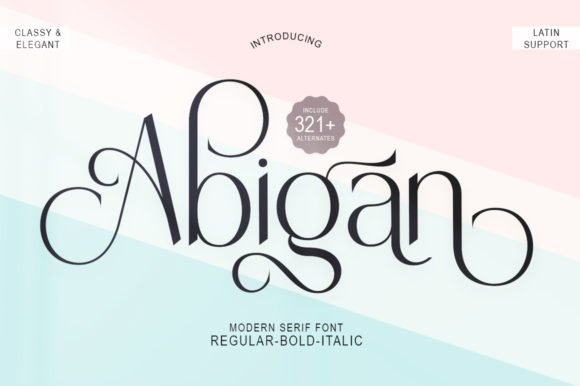
The Perfect Blend of Elegance and Sophistication: Abigan Font
Have you ever found yourself staring at a blank page, struggling to find the perfect font to match your creative vision? The search for the ideal typography can be overwhelming, but what if I told you that there’s a font that can elevate your projects to the next level? Enter Abigan Font, a stunning serif font designed to add a touch of sophistication and elegance to any design.
With its delicate yet balanced look, Abigan Font is the perfect choice for designers seeking to create a lasting impression. Whether you’re working on a high-end branding project, a luxury brochure, or a sophisticated website, this font is sure to enhance the beauty of your work. Its versatility and refined aesthetic make it a valuable addition to any designer’s toolkit.
Abigan Font Key Features
- Unique Characteristics: Abigan Font features a unique blend of modern and traditional design elements, with subtle flourishes and ornaments that add a touch of elegance and sophistication.
- Font Style: Abigan Font comes in three styles: Regular, Italic, and Bold, allowing users to choose the perfect style to suit their design needs.
Abigan Font Review
I recently had the chance to work with the Abigan Font, and I must say it’s an interesting addition to the typography world. Here’s my honest take on what works well and what doesn’t.
- Unique design: The Abigan Font has a distinct, modern feel to it, making it stand out from more traditional fonts.
- High legibility: Despite its unique design, the font remains highly legible, even at smaller font sizes.
- Good for digital use: The Abigan Font seems well-suited for digital applications, where its modern aesthetic can really shine.
- Limited font weights: The Abigan Font is currently only available in a few weights, which may limit its versatility in certain designs.
- No italic or bold variants: As of my review, there are no italic or bold variants of the Abigan Font, which may be a drawback for some designers.
- Not suitable for traditional publishing: The Abigan Font’s modern design may not be the best fit for traditional publishing or print materials, where a more classic look may be preferred.
Overall, I think the Abigan Font is a solid choice for designers looking for a modern, high-legibility font. While it may have some limitations, its unique design and digital-friendly aesthetic make it a great option for certain projects. With a bit more development, I think the Abigan Font could become a go-to choice for many designers.
Tips for Getting the Most Out of Abigan Font
Use Abigan Font to create eye-catching headings and titles.
Combine Abigan Font with other fonts to create a unique and stylish design.
Experiment with different font sizes and colors to add depth and visual interest to your design.
Use Abigan Font for:
Graphic design projects, such as brochures, flyers, and posters.
Web design projects, such as website headers and footers.
Document design projects, such as business